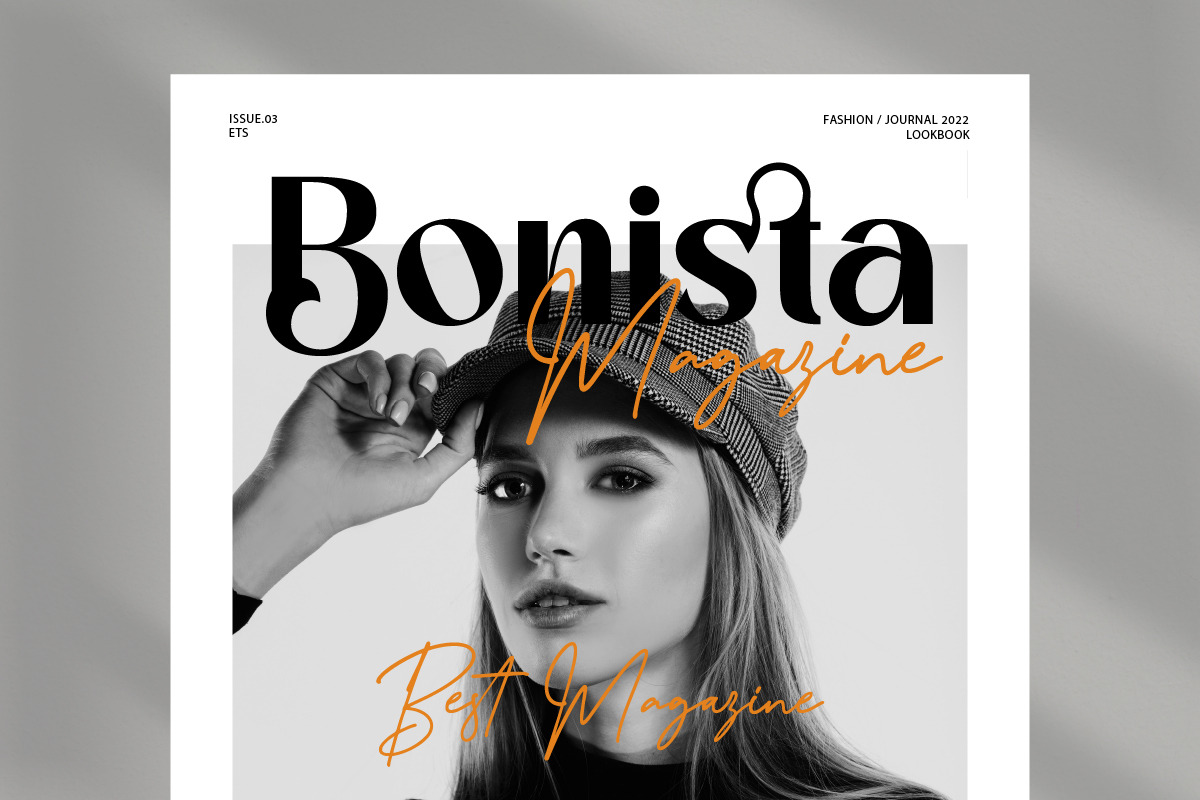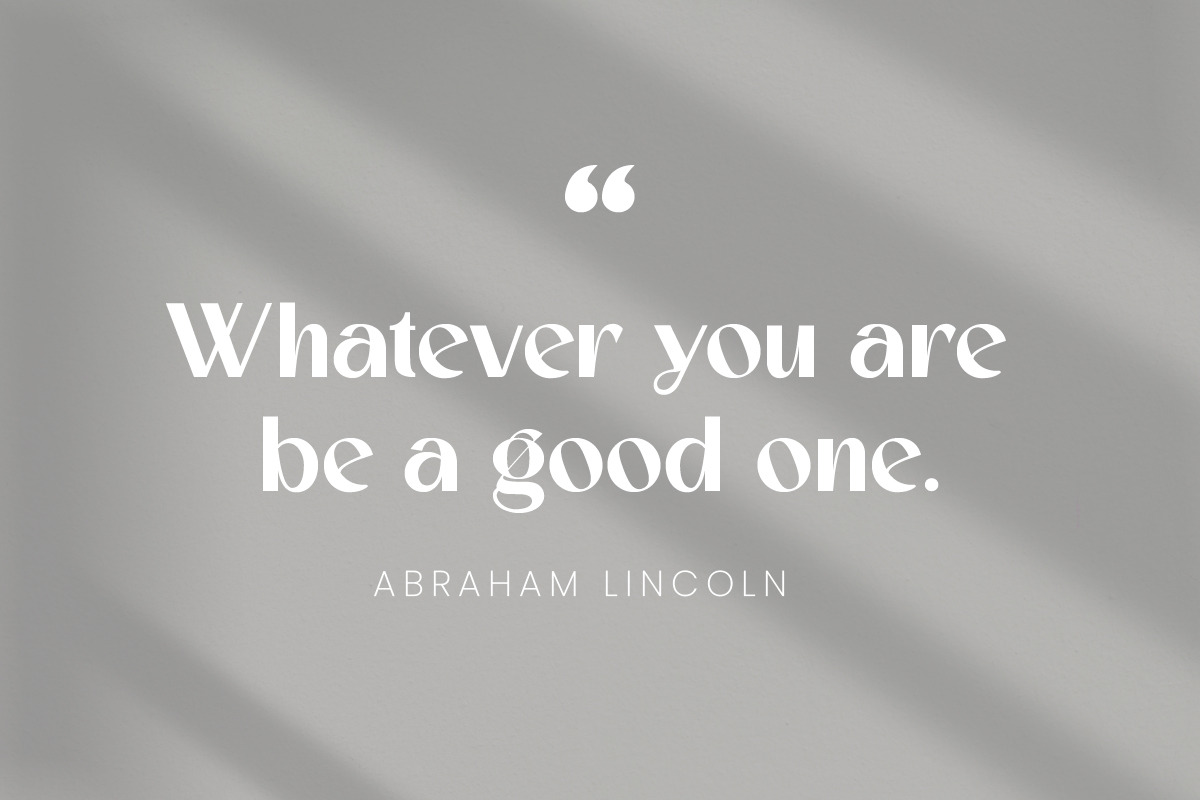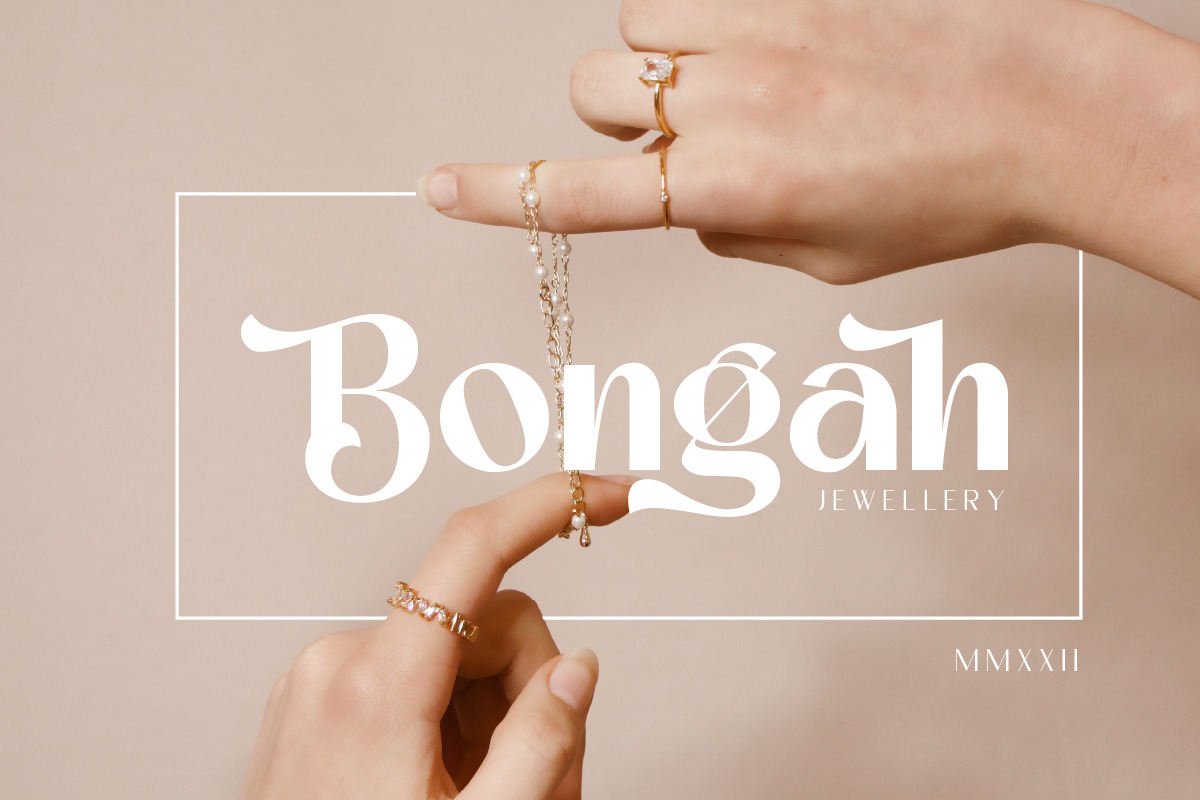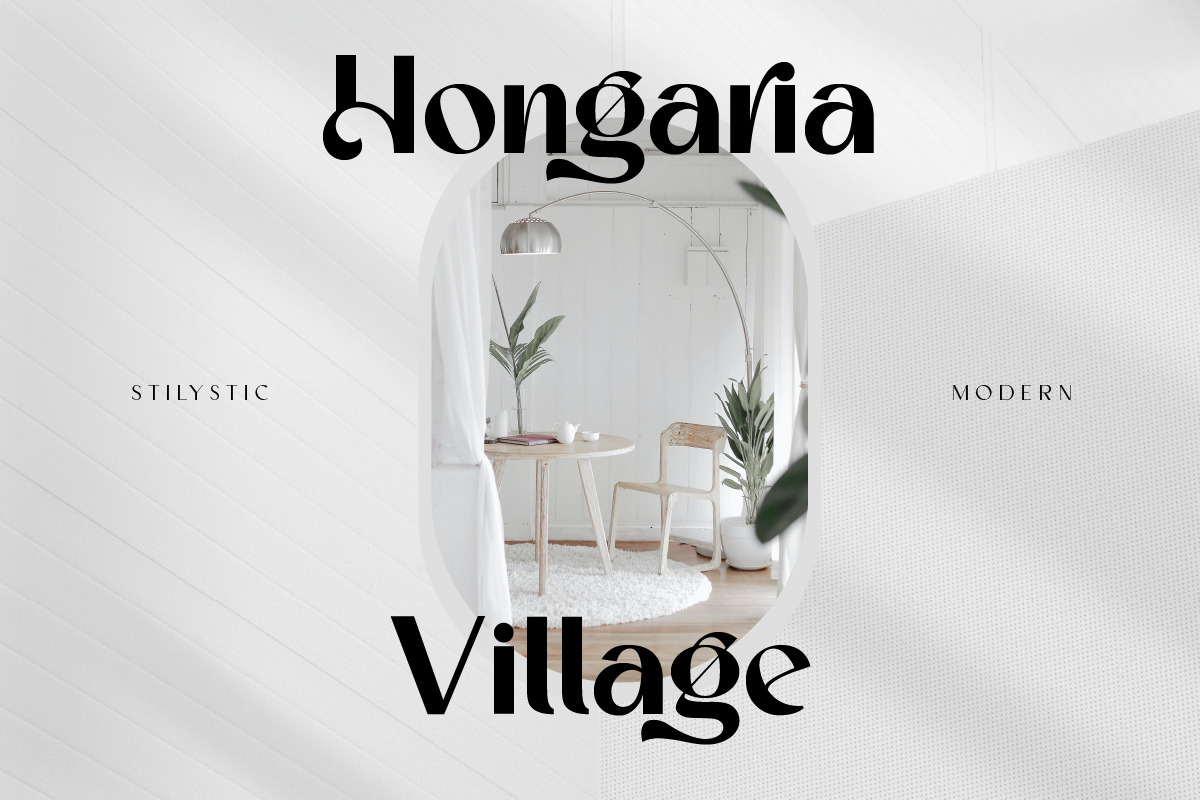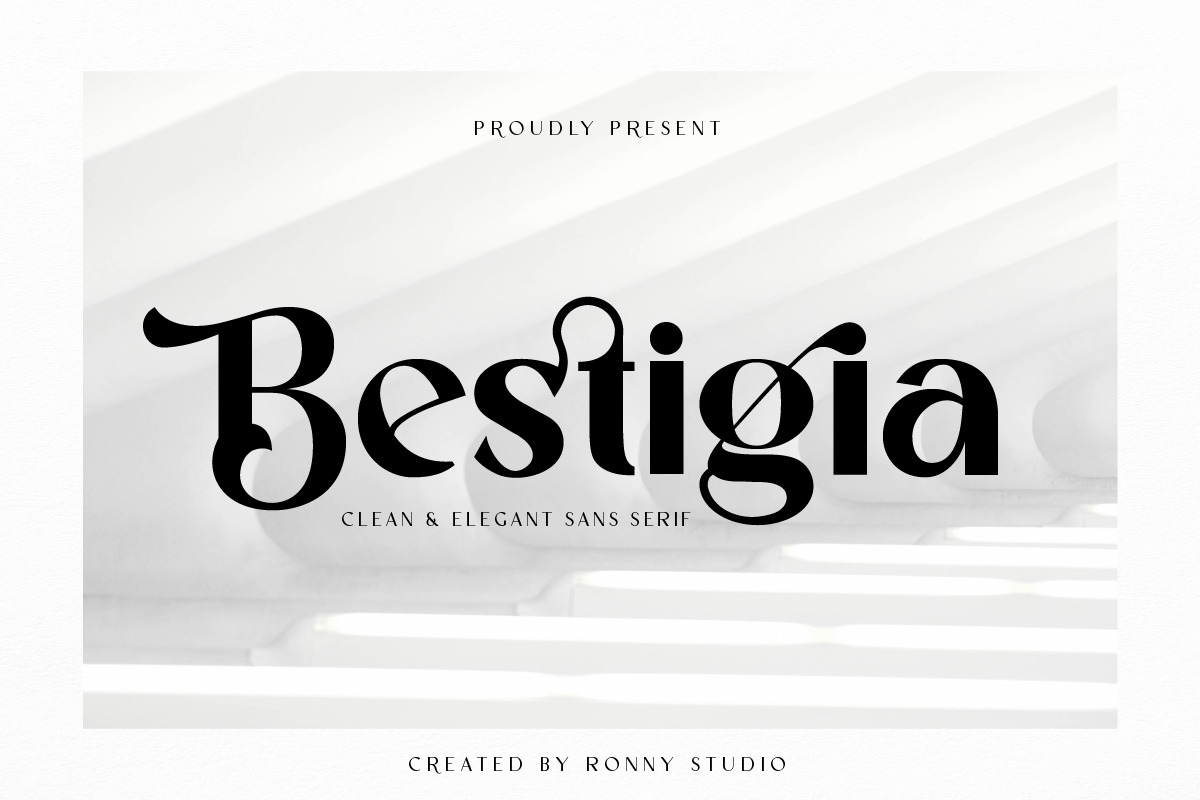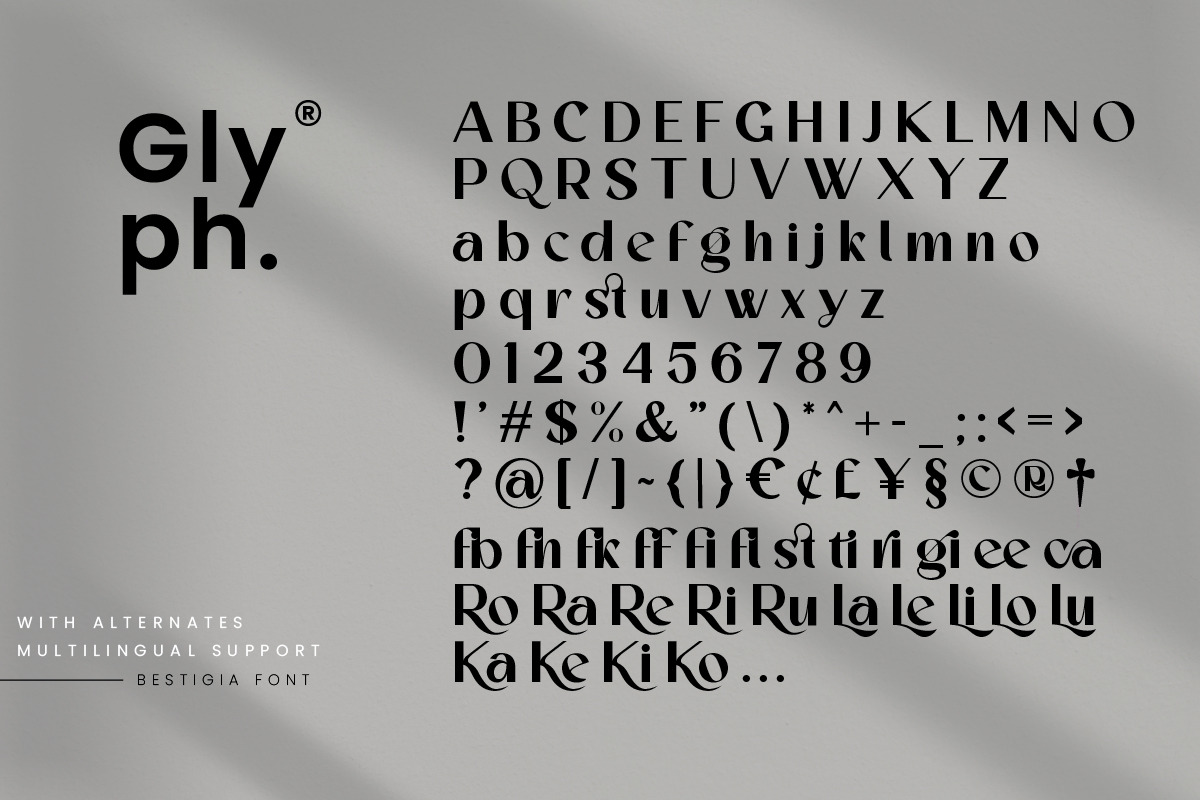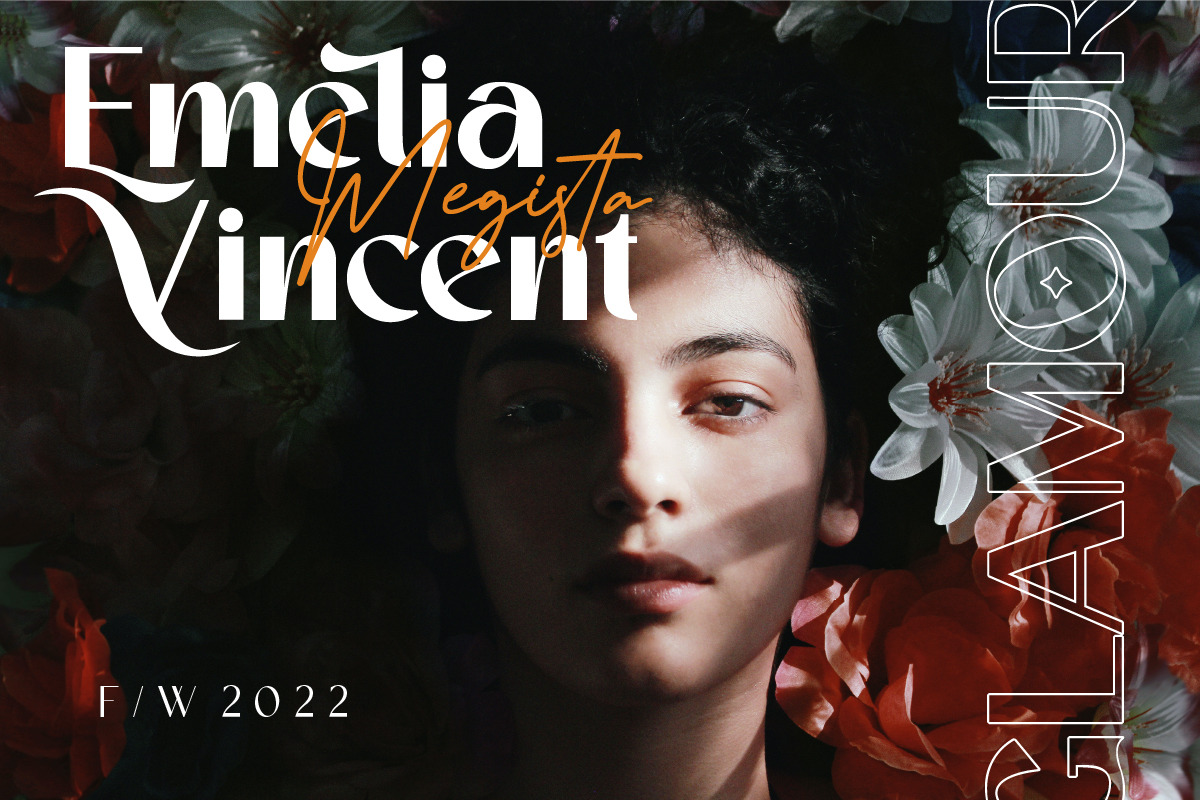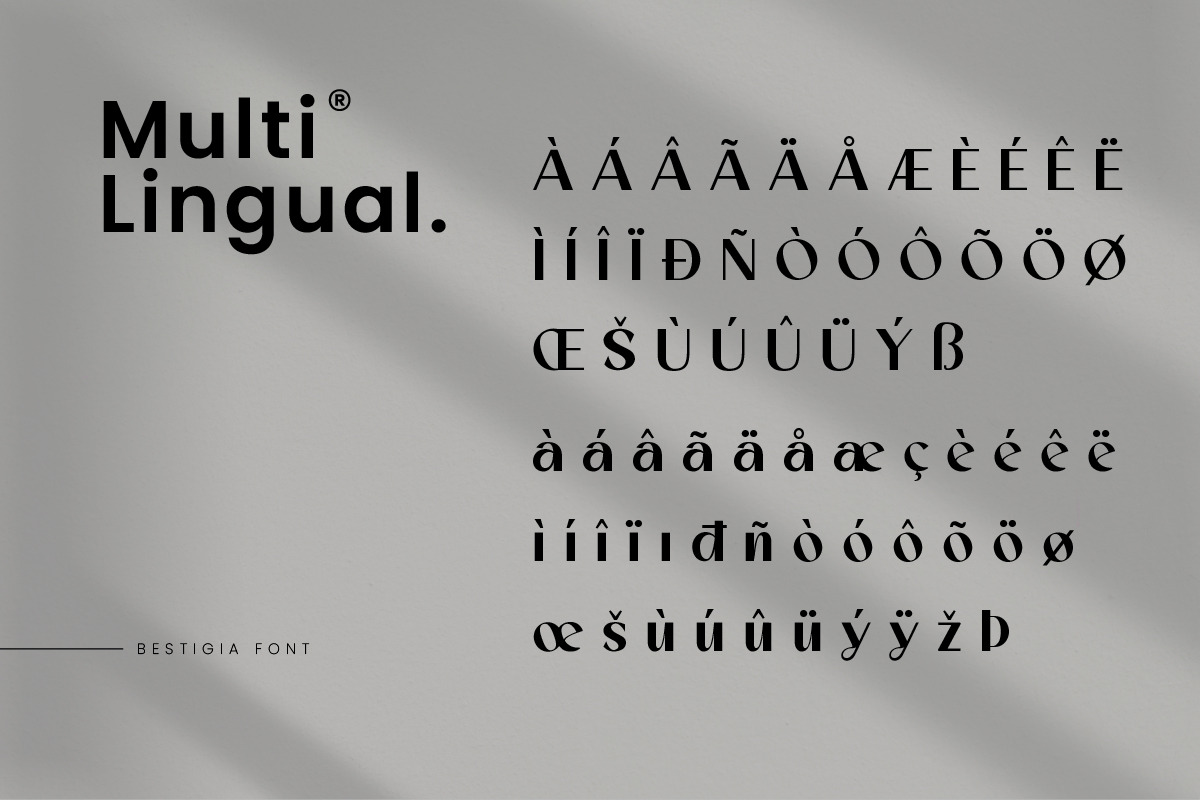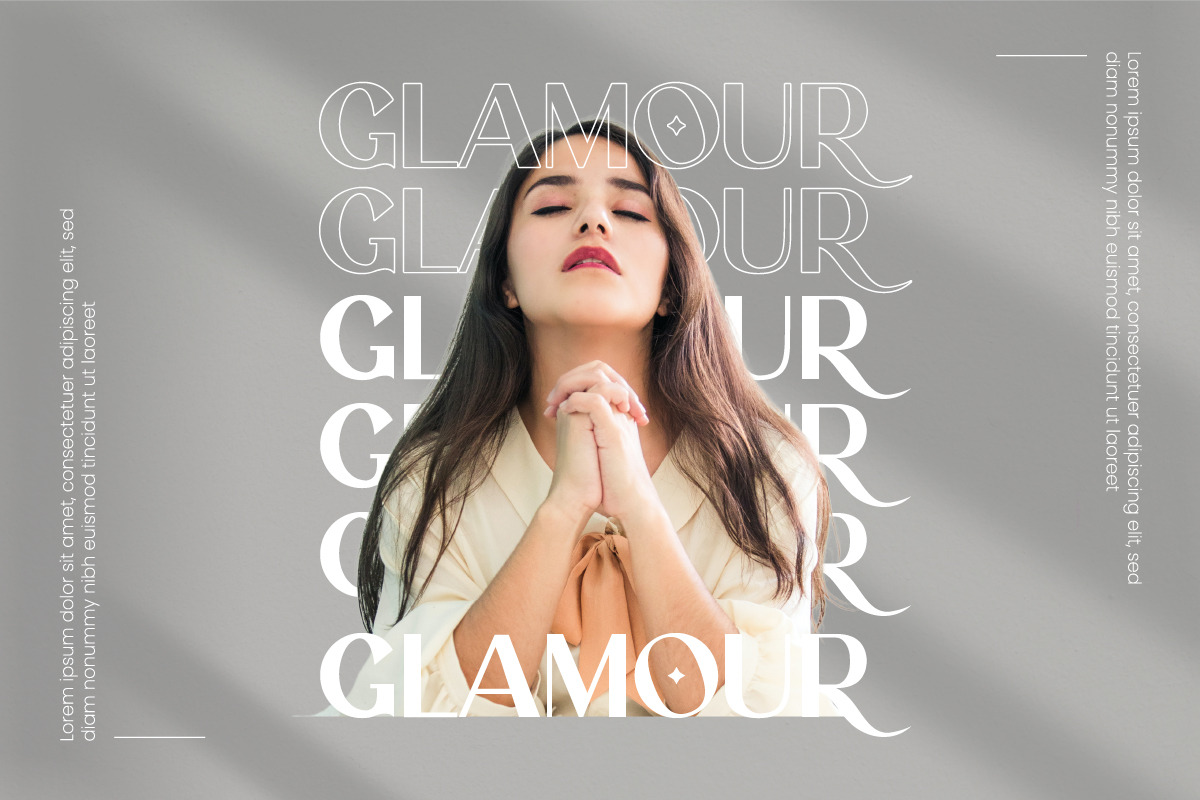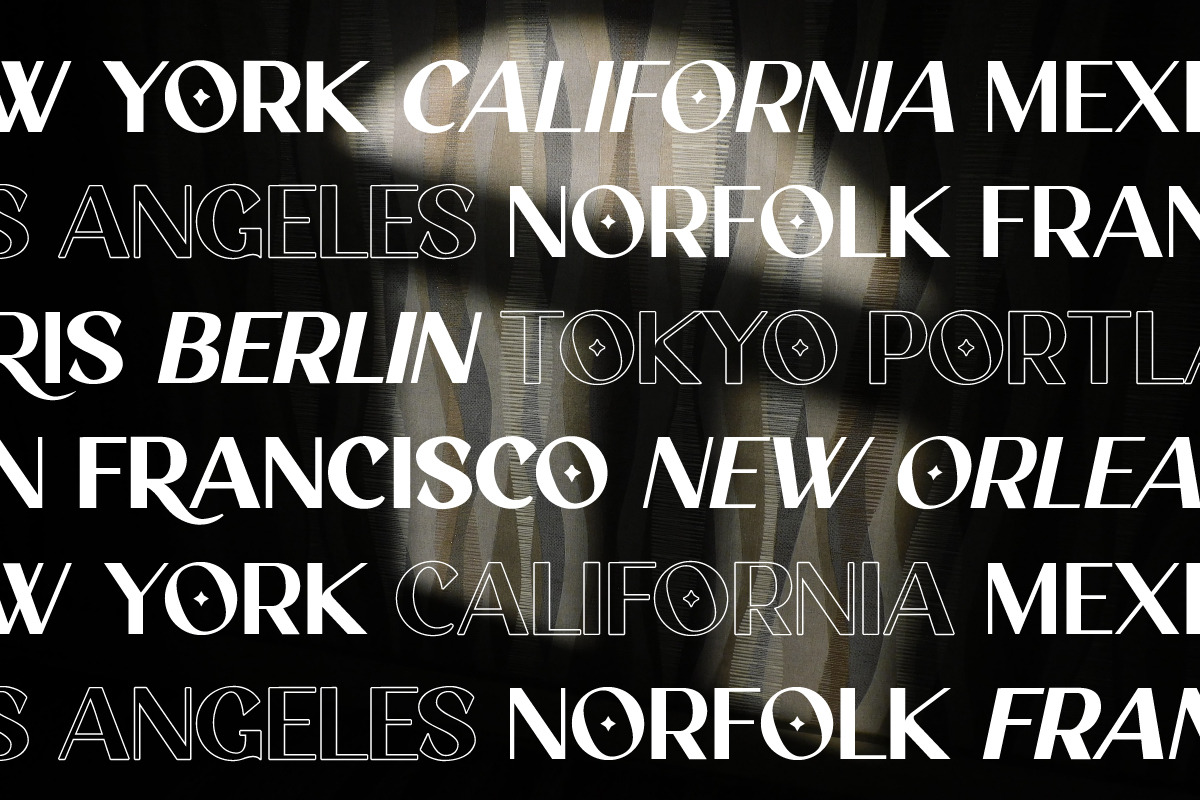
Bestigia Beauty Elegant Sans Font
Bestigia is an elegant and chic Sans Serif font. This font is impressive and features an clean and elegant, professionally shaped font, and as a result, it will easily match a variety of creations that require a different touch. Add it with confidence to your projects, and you'll love the results. This typeface is perfect for elegant logos, branding, travel promotions, layout magazines, beauty products, product packaging, quotes, or simply as a stylish text overlay onto any background image.
5 Weight Font :
- Italic
- Bold
- Bold Italic
- Outline
Bestigia Features :